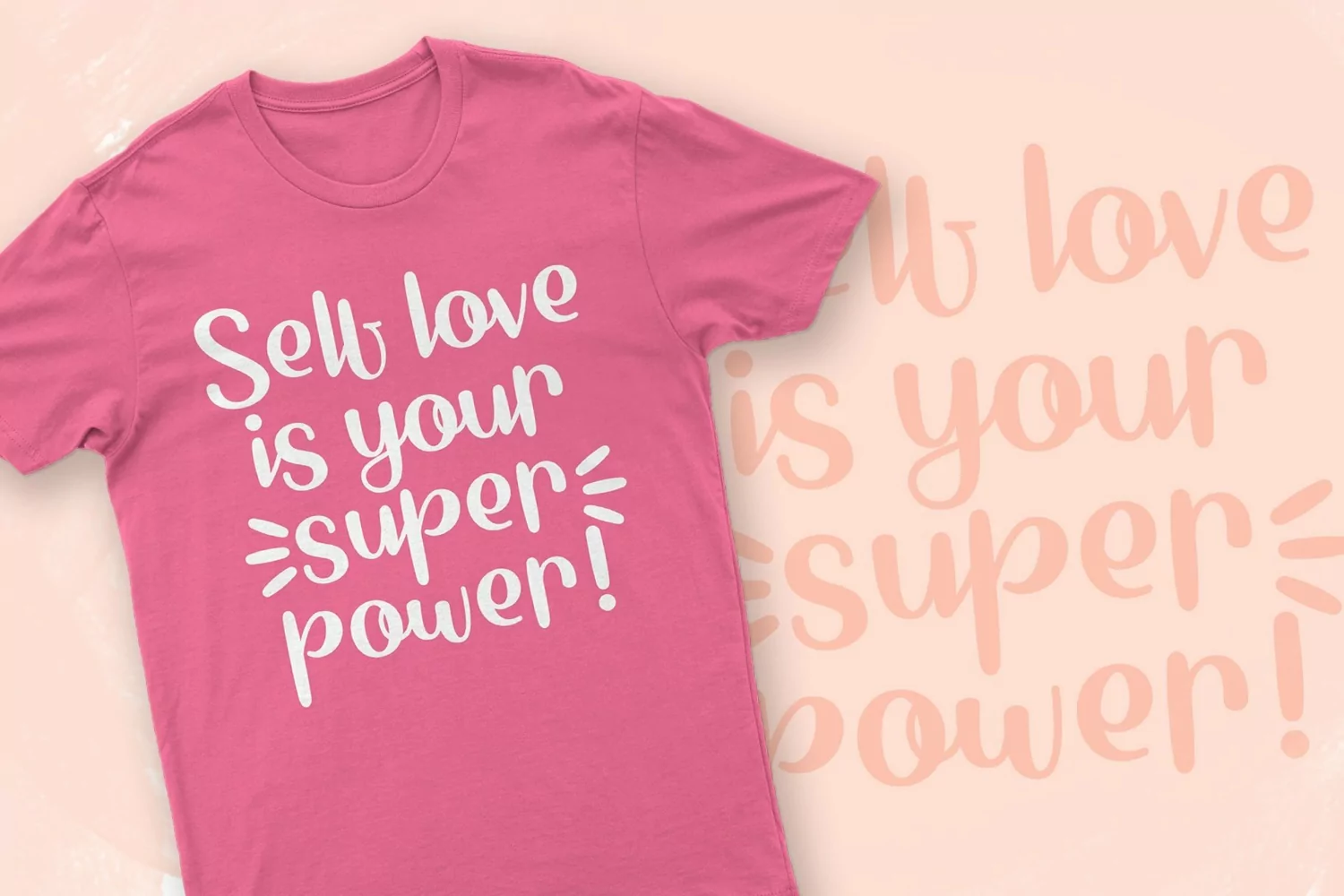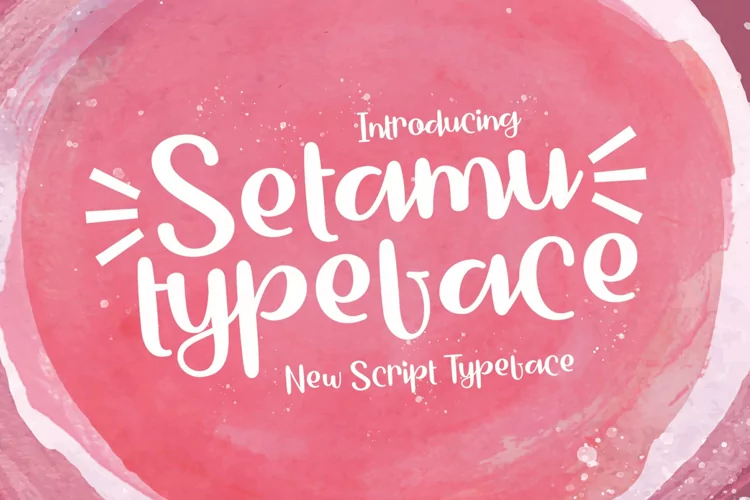
Setamu is a new script typeface. Perfect for display, poster, quotes, film, craft needs, book cover, business card, packaging, merchandise, branding, logo, logotype, header, title, and many more.